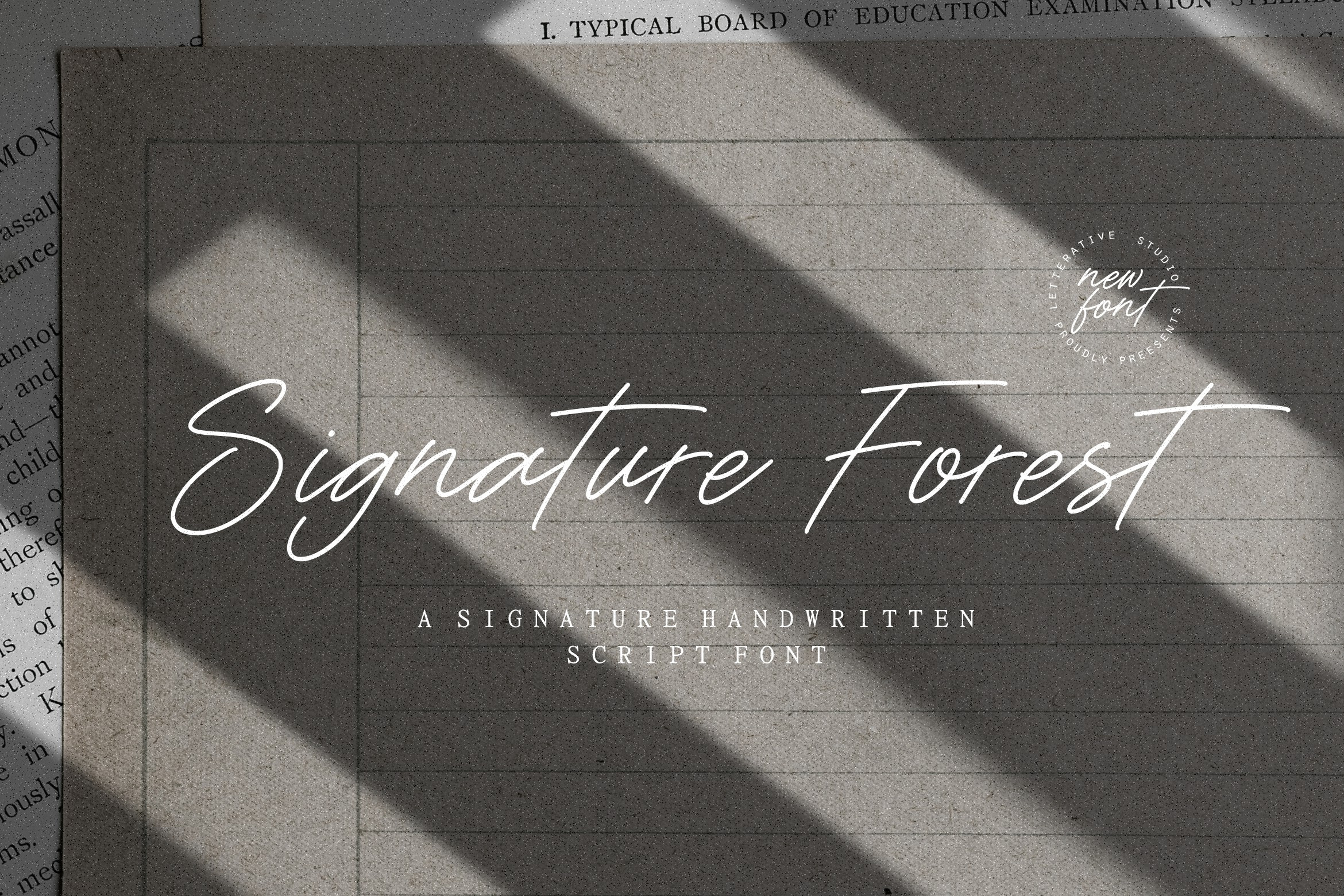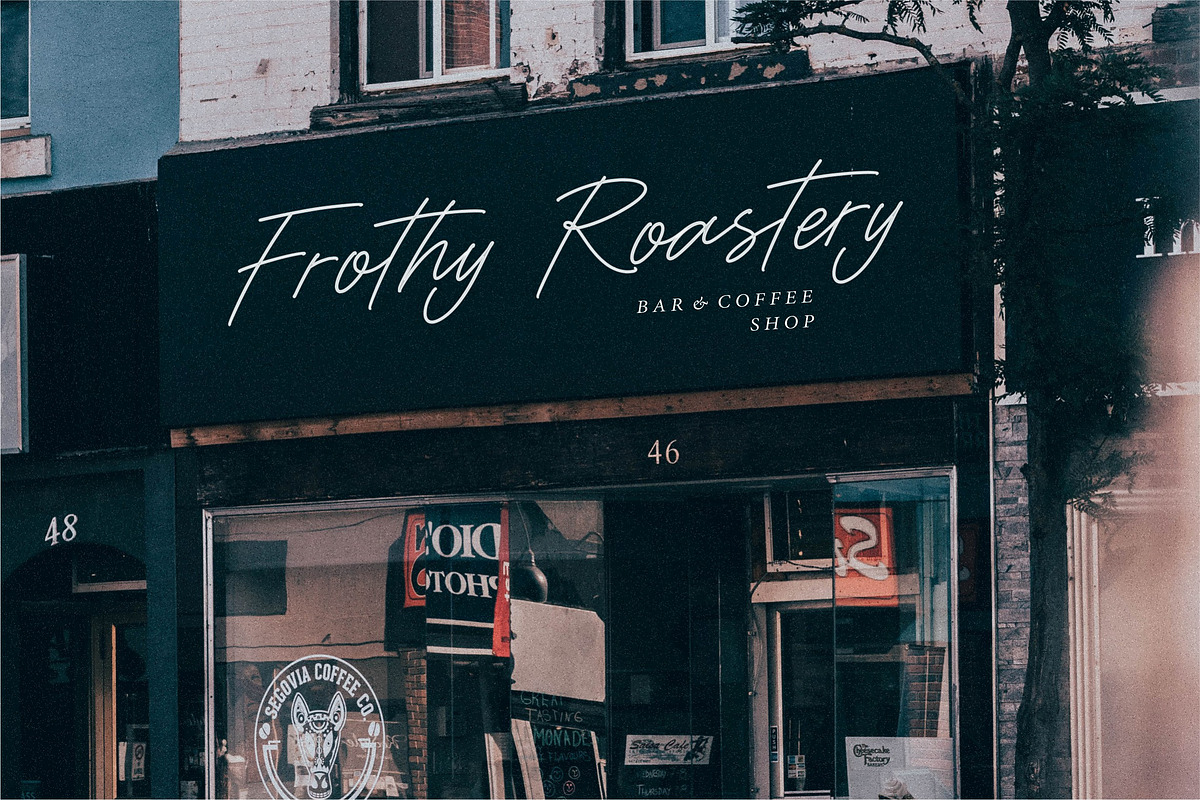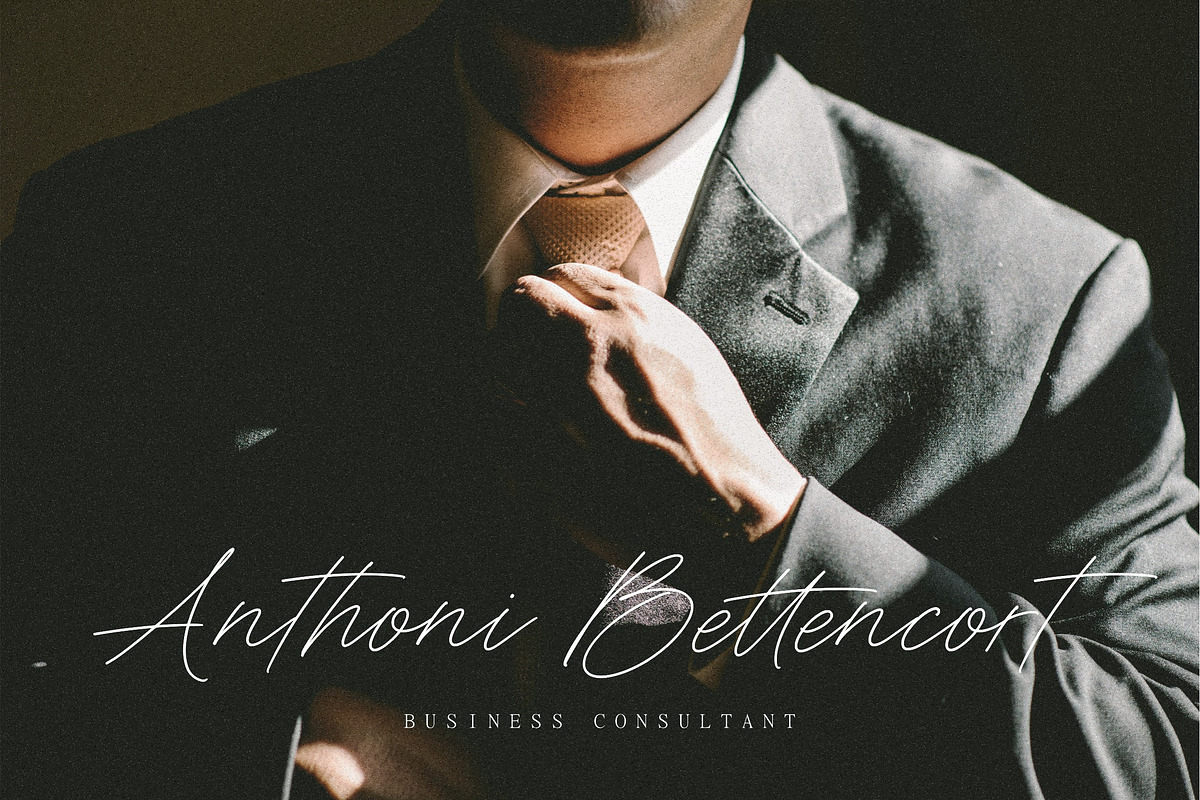
Signature Forest - Script Font
Introducing by Letterative Studio : Signature Forest Font
Signature Forest is a Signature Handwritten Script Font
Signature Forest is a modern, monoline signature handwritten script font. Whether you’re using it for crafts, digital design, presentations, or making greeting cards, this font has the potential to become your favorite go-to font, no matter the occasion!